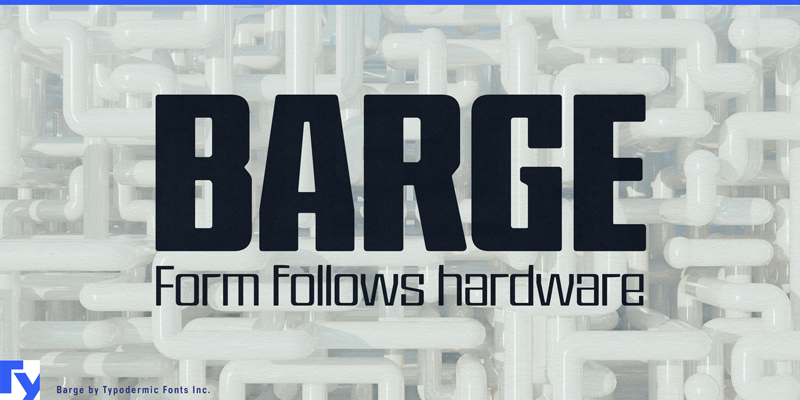
Barge
Barge is a compact industrial display typeface designed to look at home on the machines and products it identifies. Its narrow, sturdy forms combine softened chamfers with squared details, giving headlines and model names the presence of lettering built into an equipment housing rather than added afterward. Use Barge Black and Black Italic for machinery branding, control panels, power tools, sports equipment, motorsports graphics, pharmaceutical and supplement packaging, or science-fiction hardware. Its dense proportions pack substantial impact into limited space. These fonts include a license that allows free commercial use: sometimes referred to as a desktop license. This allows you to install the fonts on a computer and use them to create posters, web graphics, game graphics, t-shirts, videos, signs, logos and more. Read the license agreement for details. If you'd like to embed this font in an app, on the web or anything that's not covered by the desktop license agreement, visit the link below. You'll find distributors who offer different types of licenses, or you can contact me for help. https://typodermicfonts.com/barge/ These free fonts are part of a larger font family. Check out the rest of the family through the link above.